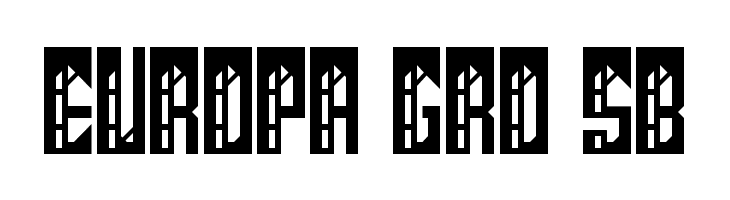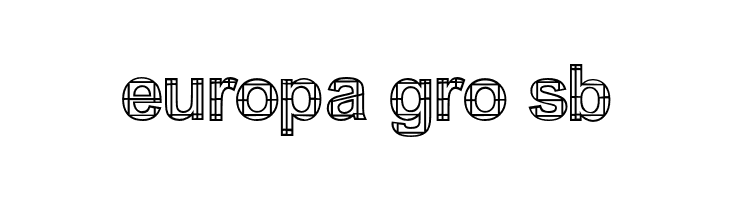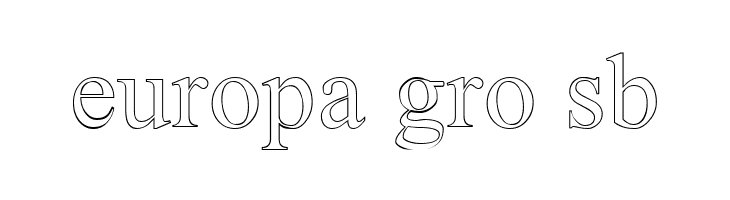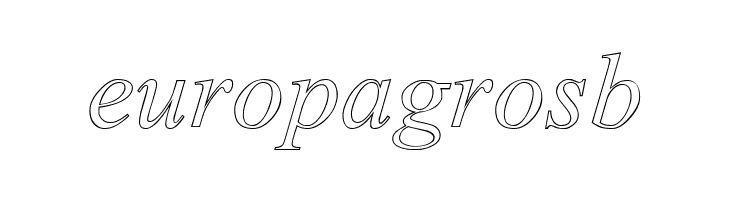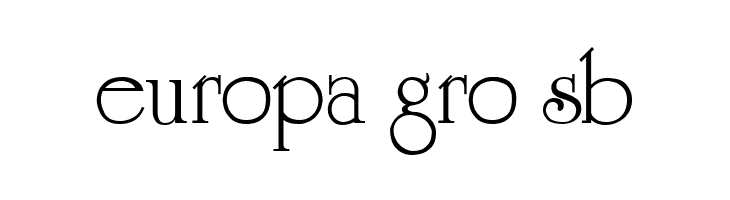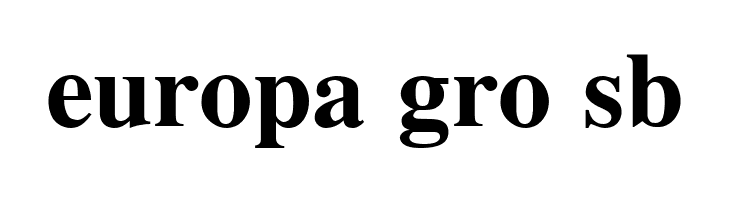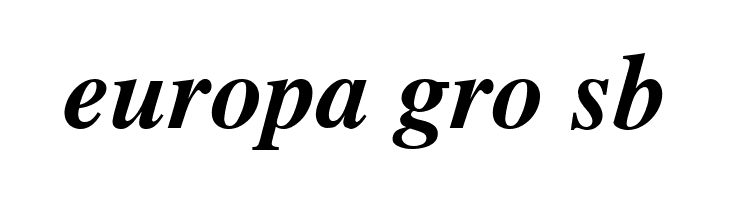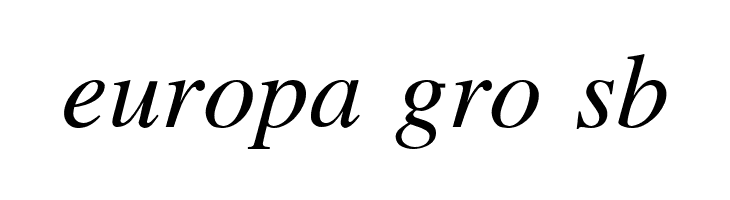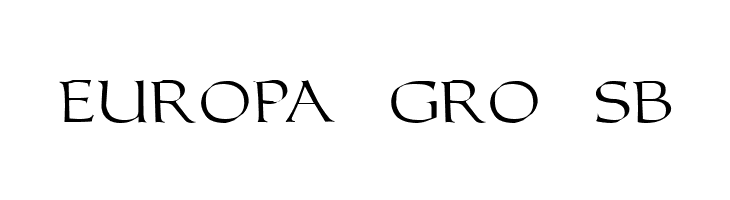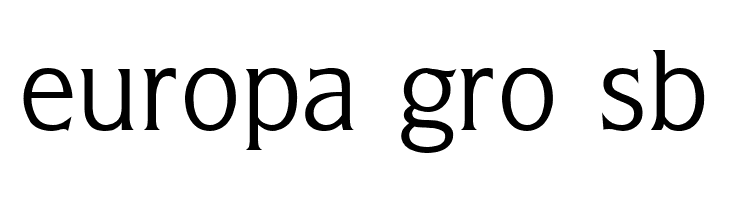
( Pixel Kitchen )
A bold, geometric font with an architectural and futuristic style.
( RIzky Irawan - www.rizkyirawan90s.blogspot.com )
A decorative, double-line font with a geometric, architectural style.
( Roger White - web.archive.org/web/20120416090521/www.rogersfonts.org.uk/ )
An elegant serif font with a modern outline design.
( Roger White - web.archive.org/web/20120416090521/www.rogersfonts.org.uk/ )
An elegant italic outline font with a refined and artistic style.
( Roger White - web.archive.org/web/20120416090521/www.rogersfonts.org.uk/ )
A classic serif font with elegant strokes and refined serifs.
( Roger White - web.archive.org/web/20120416090521/www.rogersfonts.org.uk/ )
A bold serif font with strong vertical strokes and slightly curved serifs, ideal for impactful headlines.
( Roger White - web.archive.org/web/20120416090521/www.rogersfonts.org.uk/ )
A bold, italic serif font with a classic yet modern appeal.
( Roger White - web.archive.org/web/20120416090521/www.rogersfonts.org.uk/ )
An elegant serif italic font with smooth curves and balanced stroke contrast.
( Roger White - web.archive.org/web/20120416090521/www.rogersfonts.org.uk/ )
A classic serif font with elegant, sharp serifs and refined proportions.
( Roger White - web.archive.org/web/20120416090521/www.rogersfonts.org.uk/ )
A classic serif font with modern elegance and refined letterforms.